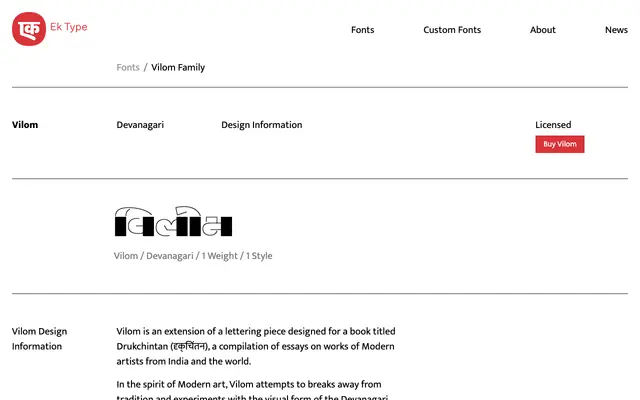
A single-weight experimental Devanagari display typeface that balances geometric abstraction with legibility, rooted in a commission for an Indian modern art publication.
Developed from lettering created for Drukchintan, a book of essays on modern Indian and international artists, Vilom pushes Devanagari script into modernist territory. Solid rectangles and circles dominate the dandas and bindus whilst thin strokes define the remaining character shapes, creating a deliberate tension between abstraction and readability. Available in one weight and one style, it is built for display contexts where formal experimentation is the point.
Vilom is a display typeface that uses geometric abstraction — solid rectangles, circles and thin lines — to render Devanagari script, departing from traditional letterform conventions in favour of a modernist visual language.